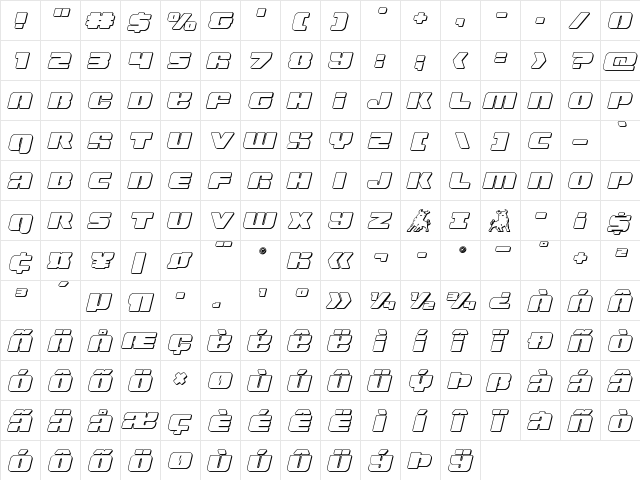
Capricus Outline Semi-Straight Outline
Design Context for Capricus Outline Semi-Straight Typeface
Capricus Outline Semi-Straight brings ornamental detail and strong personality to headlines and identities, where visual impact matters more than quiet functionality.
Font Pairing: Pair with a clean neutral sans-serif for body copy to let Capricus Outline Semi-Straight's character lead without overwhelming the composition.
Pro Tip: Use Capricus Outline Semi-Straight exclusively at display sizes — it was designed to be seen, not read at length. Let a neutral companion handle body copy.